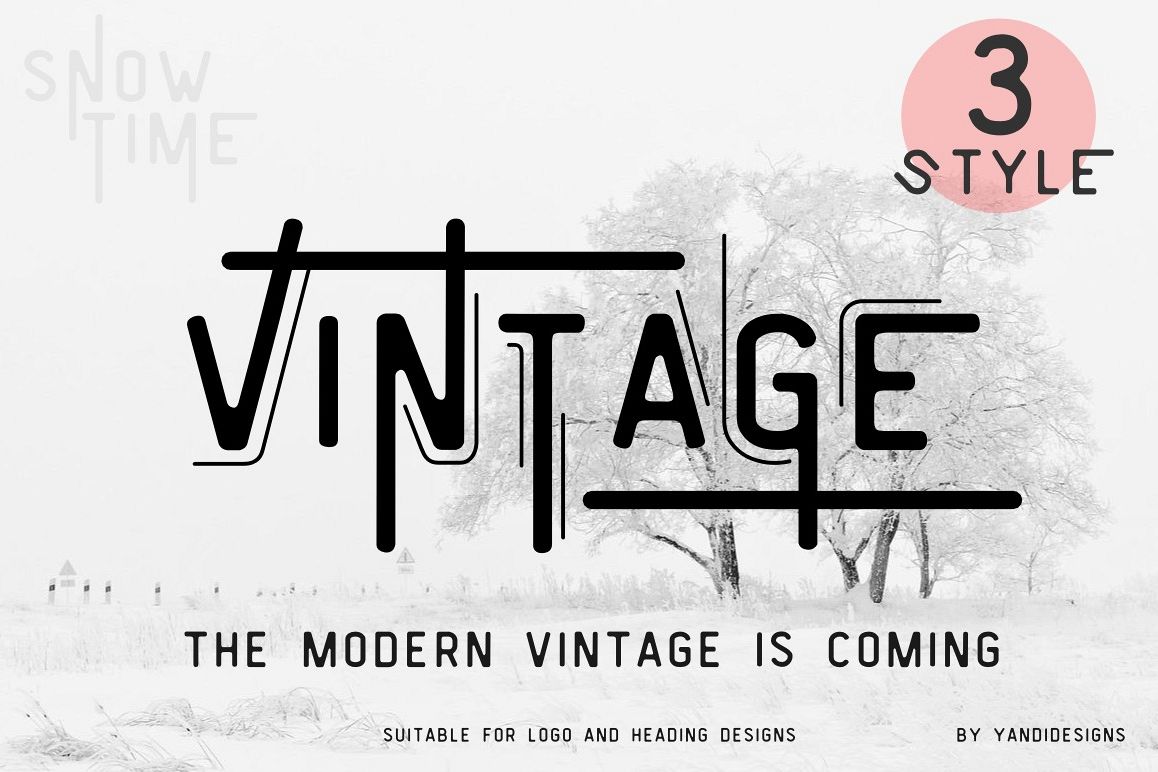
Vintage Modern
Vintage Modern Typeface
Try to combine vintage style and modern style, and there it is "Vintage Modern Typeface".
This fonts suitable for many project specialy for logo designs, label designs, quotes, heading title designs , product preview designs, branding , poster and many typography project.
Vintage Modern Typeface, contain basic character, numeral and some symbol. You can see the details , just click more preview button. There are some "in action" designs using Vintage Modern Typeface. So enjoy and hope you love it. :)
+ Vintage Smooth ( smooth and round style )
+ Vintage Edge ( with round edge for vintage feels )
+ Vintage Modern ( combine vintage fees and digital extended line )